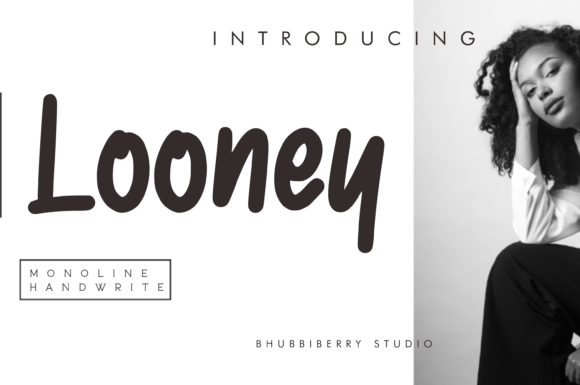
Introducing Looney Font, the whimsical display font that will ignite your creativity and unleash your imagination! Crafted by the talented bhubbiberrystudio, Looney is an extraordinary font that dances across your designs with playful energy and a touch of modern elegance.
Embrace the enchanting world of Looney, where letters transform into whimsical characters, each stroke imbued with a mischievous charm. Its unique and captivating style will paint your designs with a captivating flair that is sure to turn heads and leave a lasting impression.
With Looney at your fingertips, you'll discover endless possibilities for expressing your unique style and creating designs that exude joy and wonder. Whether you're crafting eye-catching logos, vibrant posters, or enchanting social media graphics, Looney is your perfect companion for adding a touch of playful magic.
Let Looney's whimsical spirit inspire you to create something truly extraordinary. Its versatility knows no bounds, making it the ideal choice for a wide range of design projects, from whimsical invitations to captivating branding materials.
Immerse yourself in the captivating world of Looney Font and let your creativity soar! Download it today and embark on a delightful journey of design exploration. With Looney as your guide, your designs will radiate with a charm that is both timeless and unforgettable.